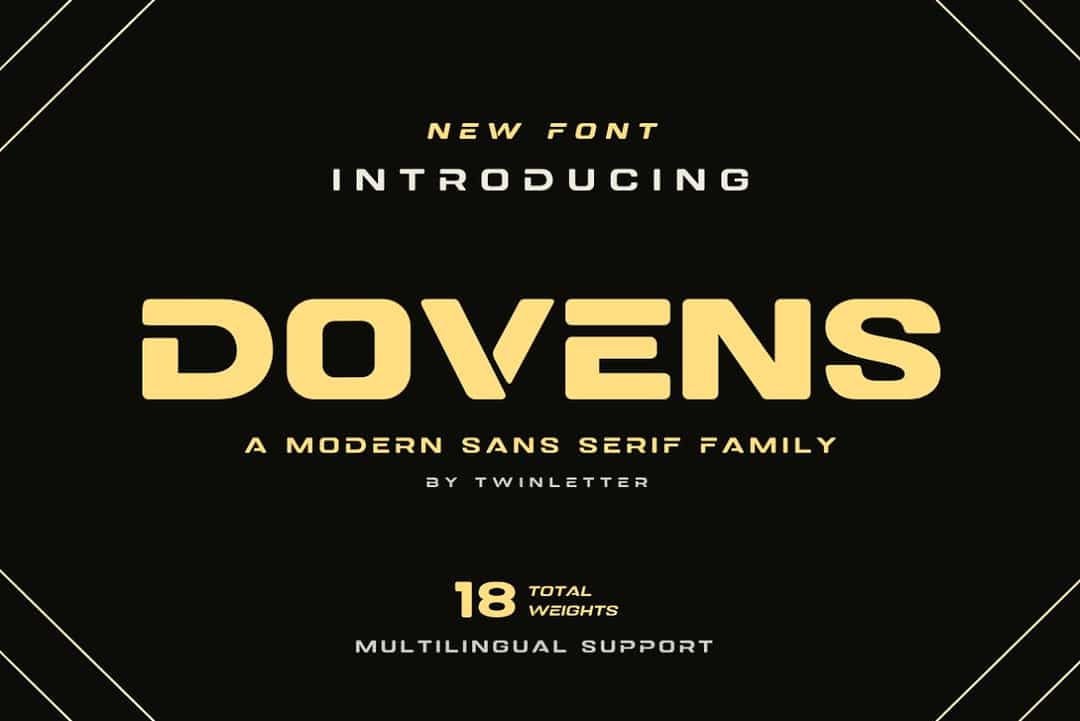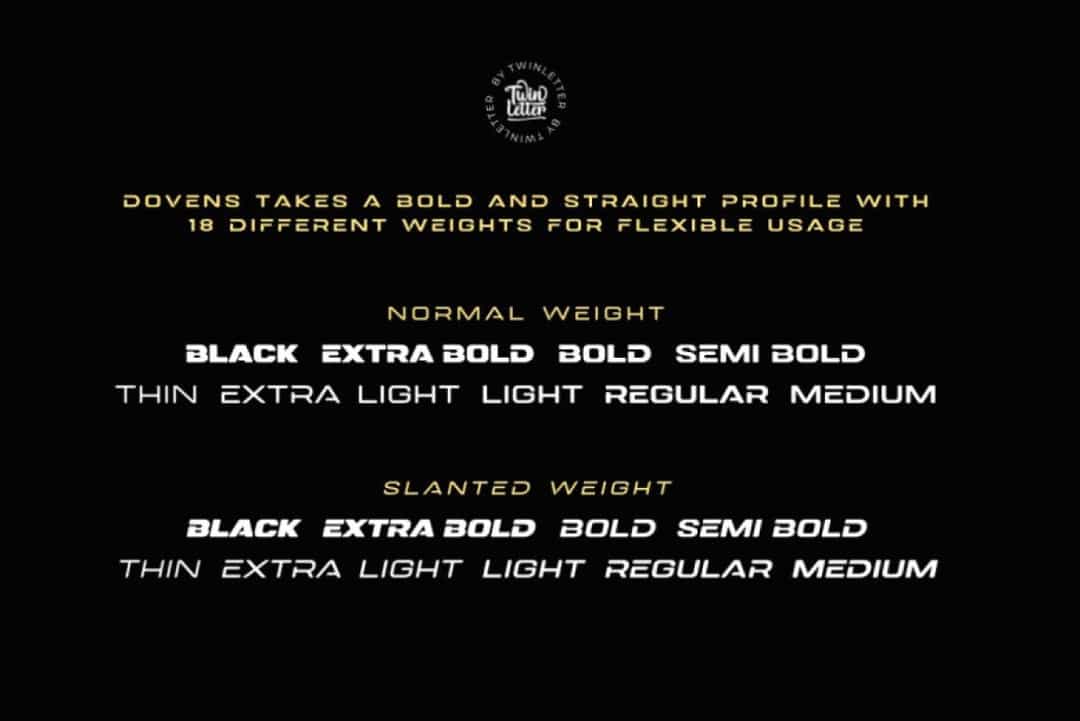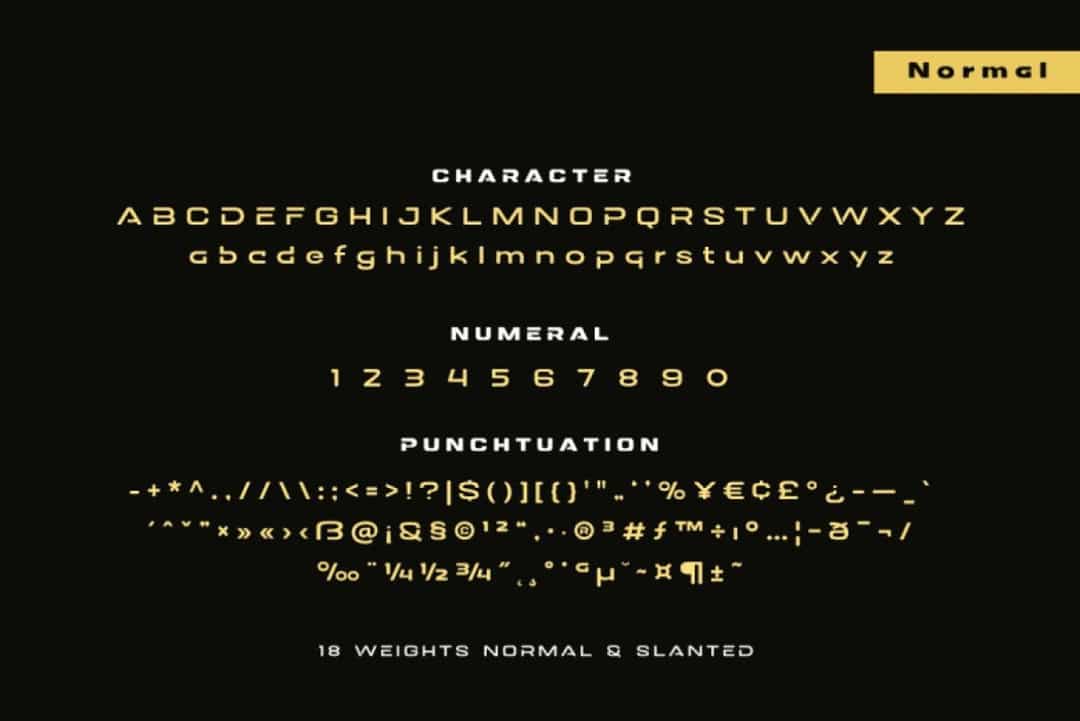
Dovens Font Family
Dovens Font is our latest line of sans-serif typefaces designed to add luxurious and distinctive styles into your work. It boasts 18 distinct styles that make this font collection suitable for various tasks.